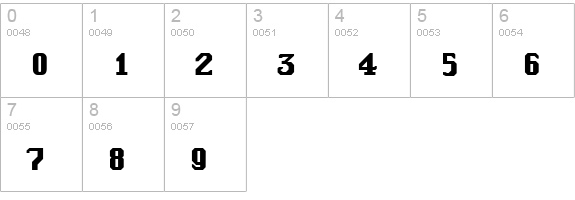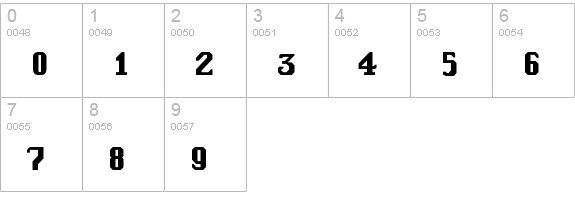
Hohenstaufen Font Details
Hohenstaufen is a classic and elegant font that exudes a sense of sophistication and timelessness. Its intricate serif details and balanced proportions make it perfect for a wide range of design projects, from branding to editorial layouts. The Hohenstaufen font family includes a variety of weights and styles, giving you the flexibility to create stunning typographic compositions. One of the best features of the Hohenstaufen font is that it is completely free to download. You can easily access this beautiful typeface at FontsMarket.com, where you can explore and download a wide selection of high-quality fonts for your design needs. With its graceful curves and refined aesthetics, Hohenstaufen is sure to add a touch of class to any project. Experience the timeless beauty of the Hohenstaufen font today and elevate your designs to new heights.